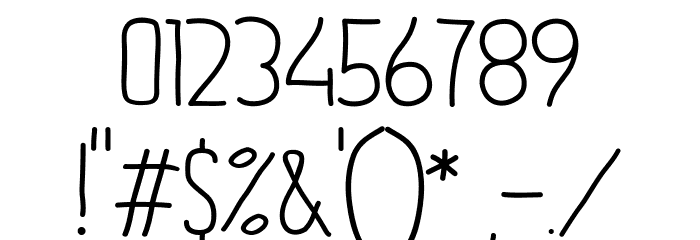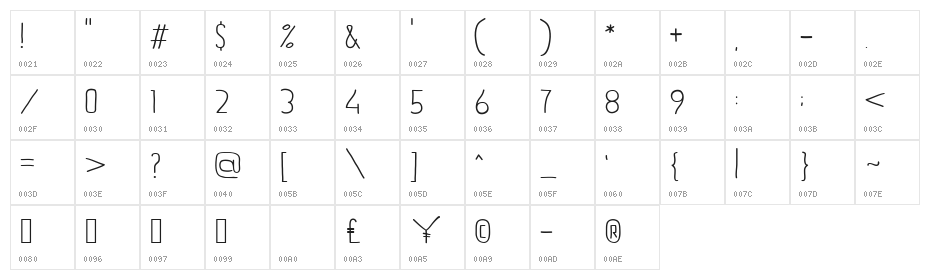
PtilNarrow Bold Font
PtilNarrow Bold Description
This font features a modern, handwritten style with a playful and casual appearance. The characters are slightly slanted, giving a dynamic and lively feel. The strokes are consistent in width, providing a uniform look across all characters. The numbers and special characters maintain the same playful style, making them easily readable while adding a touch of whimsy. This font is suitable for projects that require a personal and informal touch, such as greeting cards, invitations, or social media graphics.